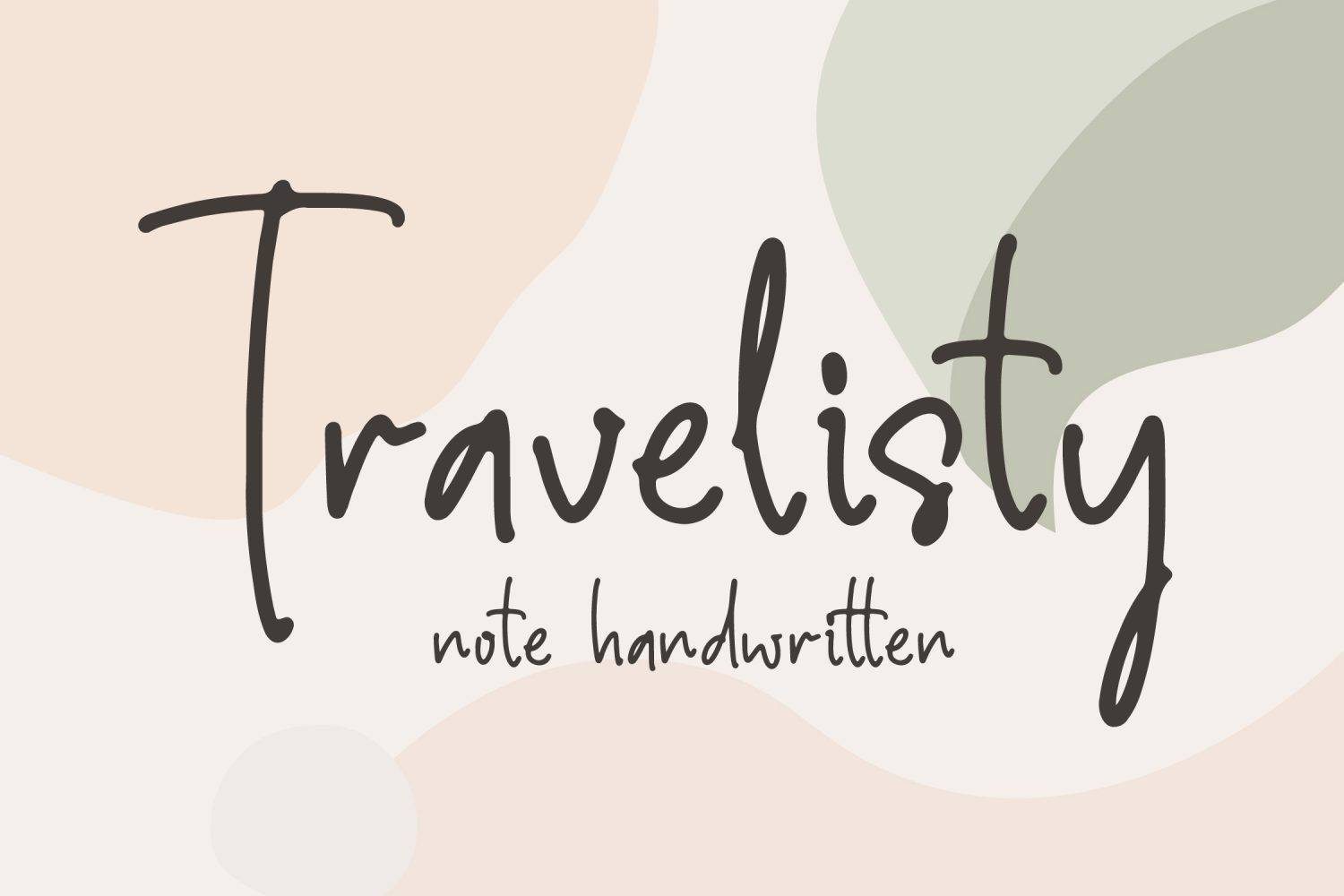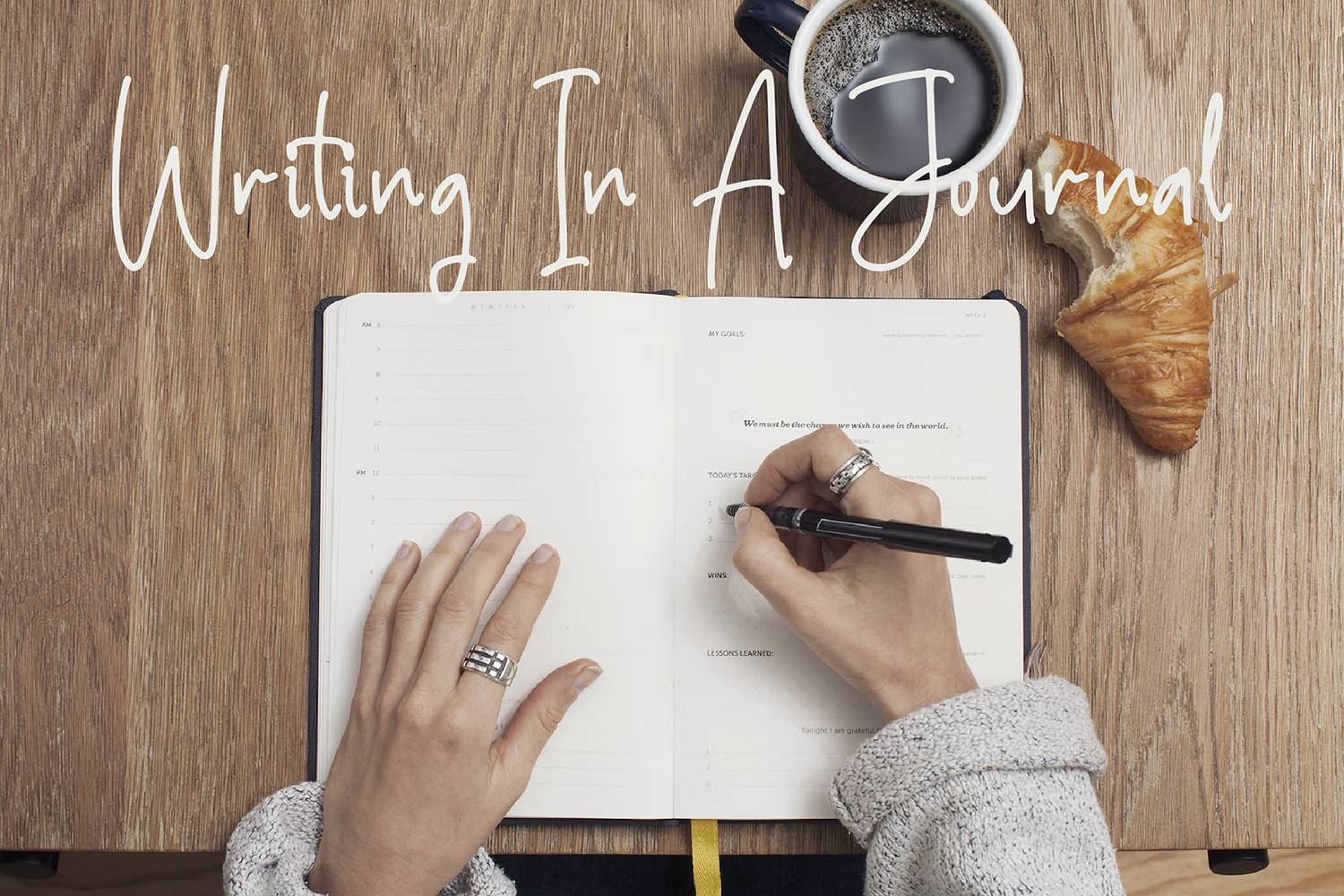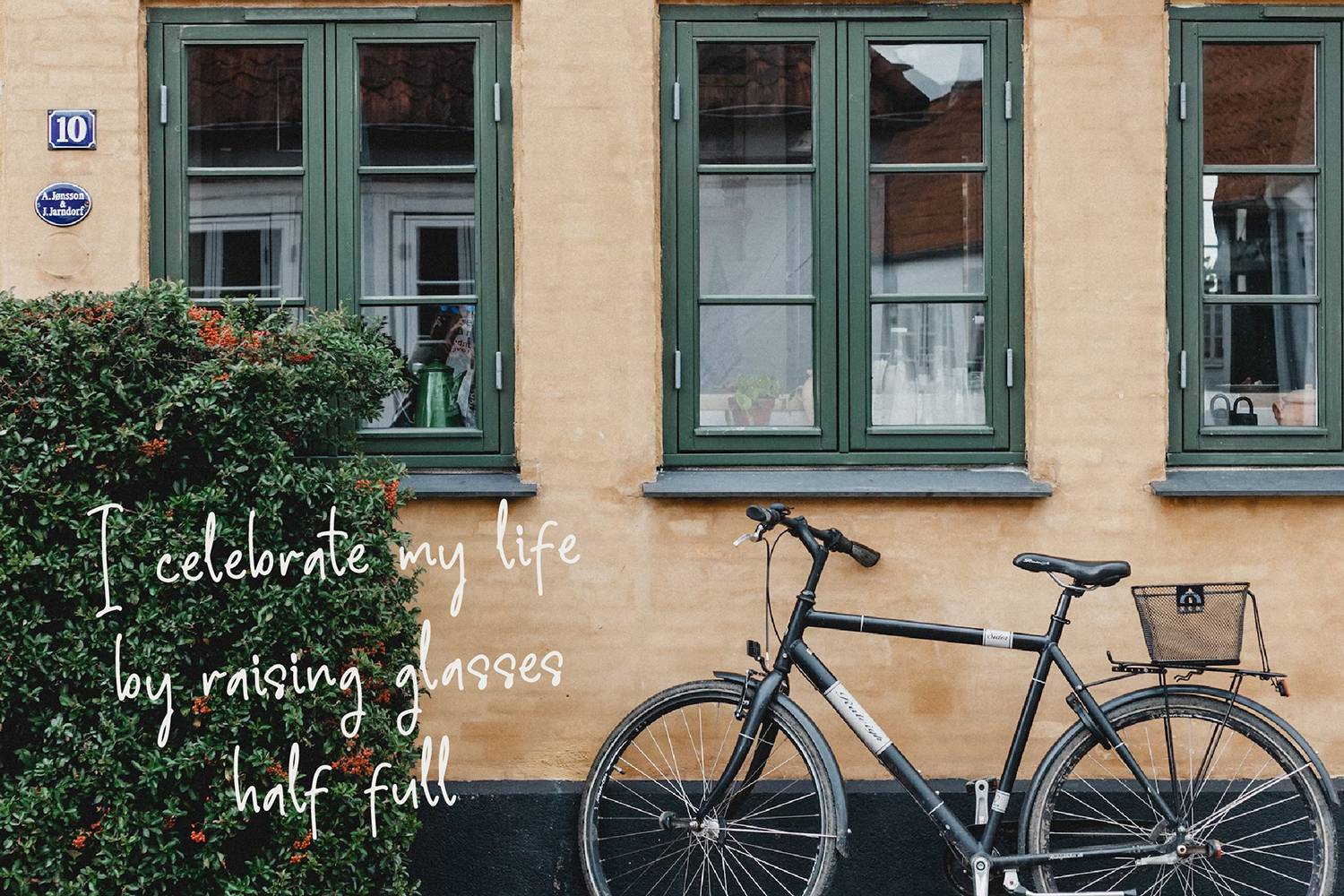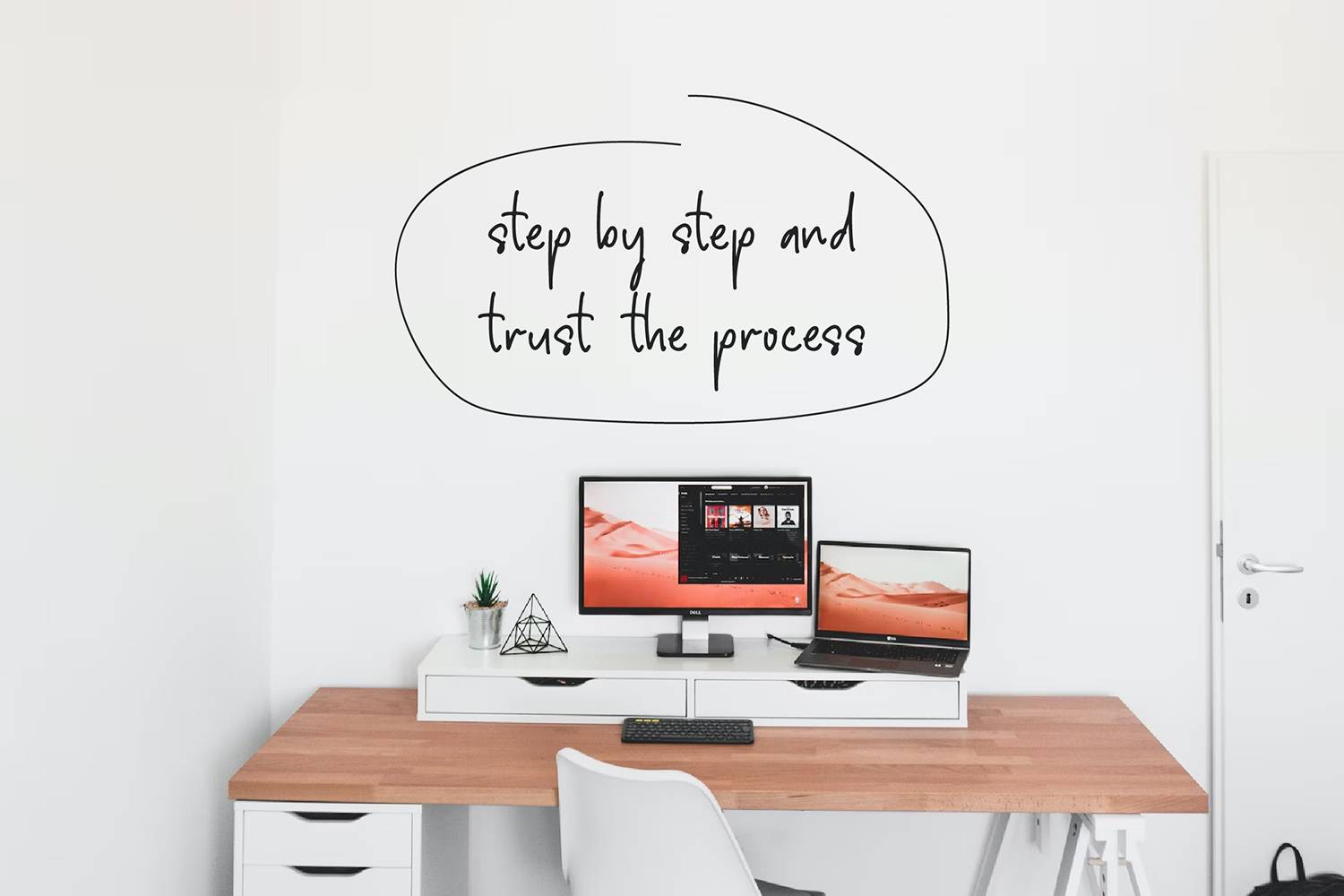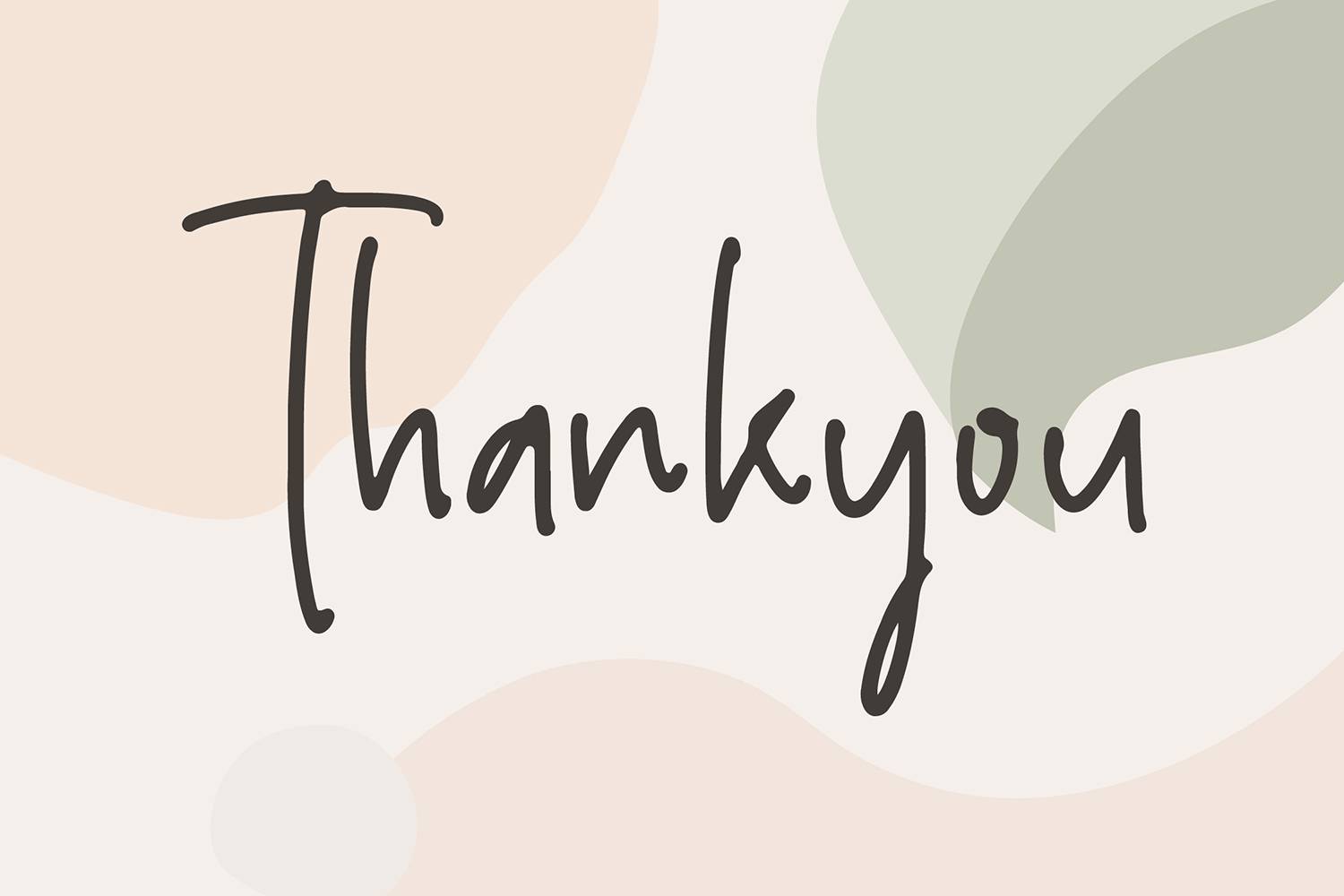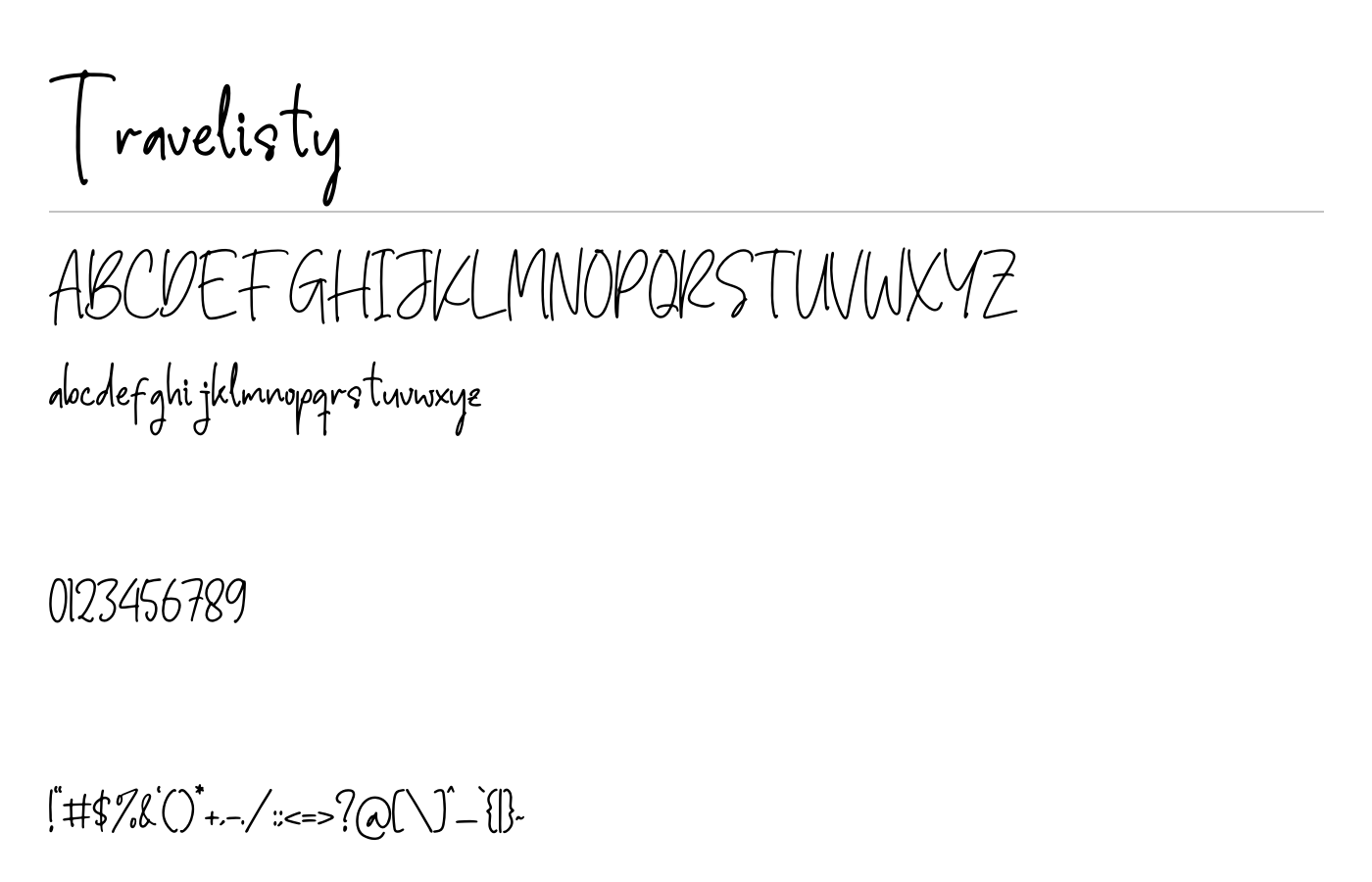
Travelisty is a playful and casual handwritten font with a light weight and tall, narrow letterforms that give it an airy and informal feel. Its smooth, slightly irregular strokes and whimsical style make it perfect for creative projects, invitations, and branding that seeks a friendly, approachable vibe. This font works well in headlines and logos where a personal, handwritten touch is desired.
Travelisty Font
About Travelisty Font